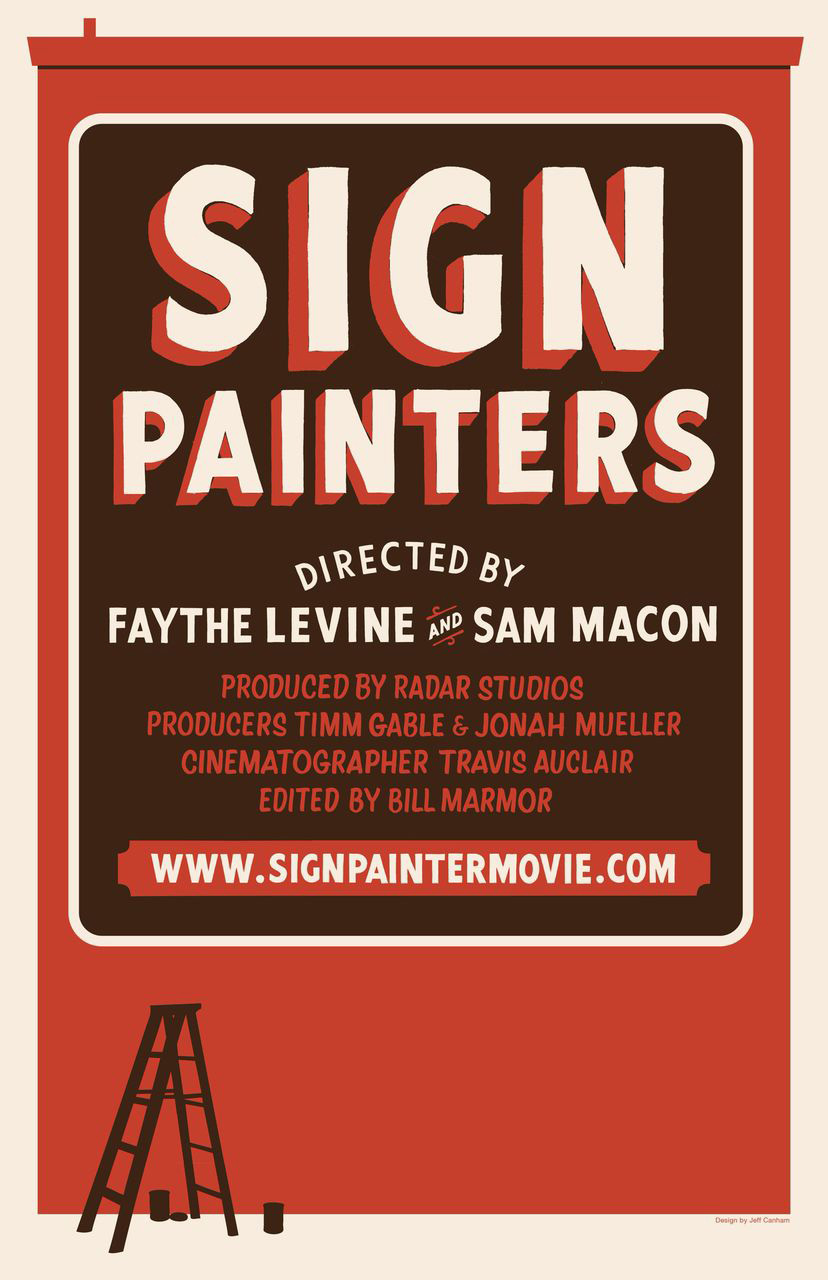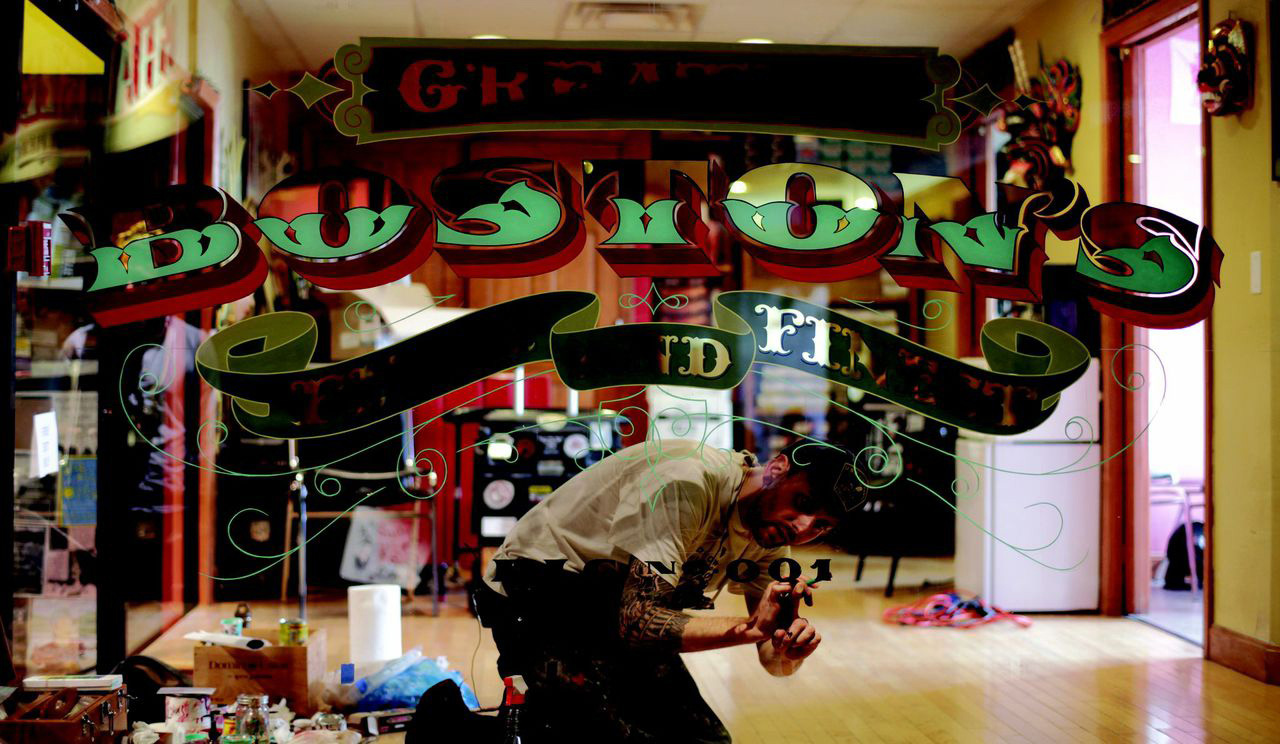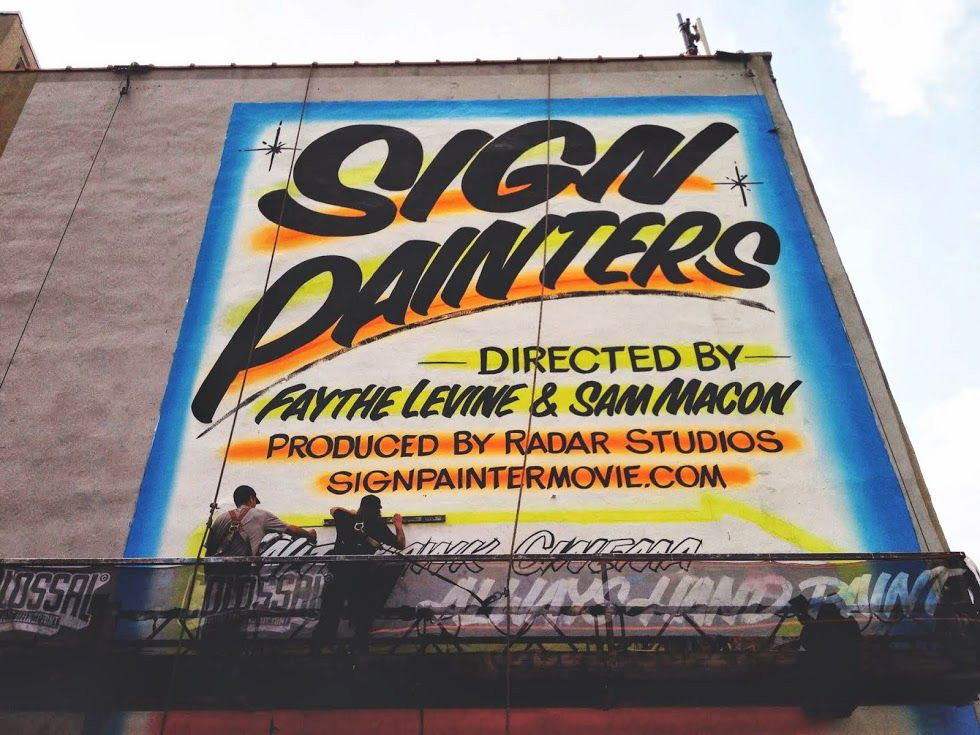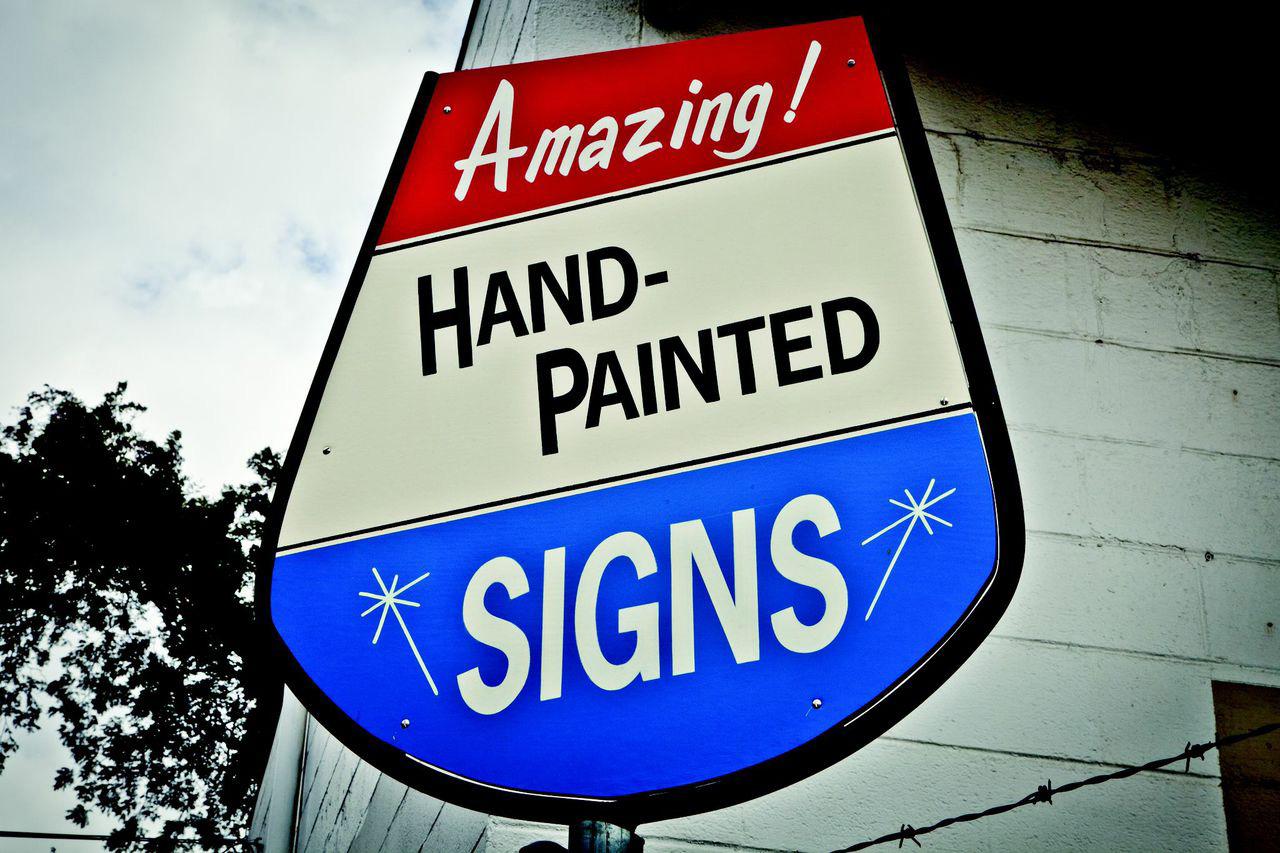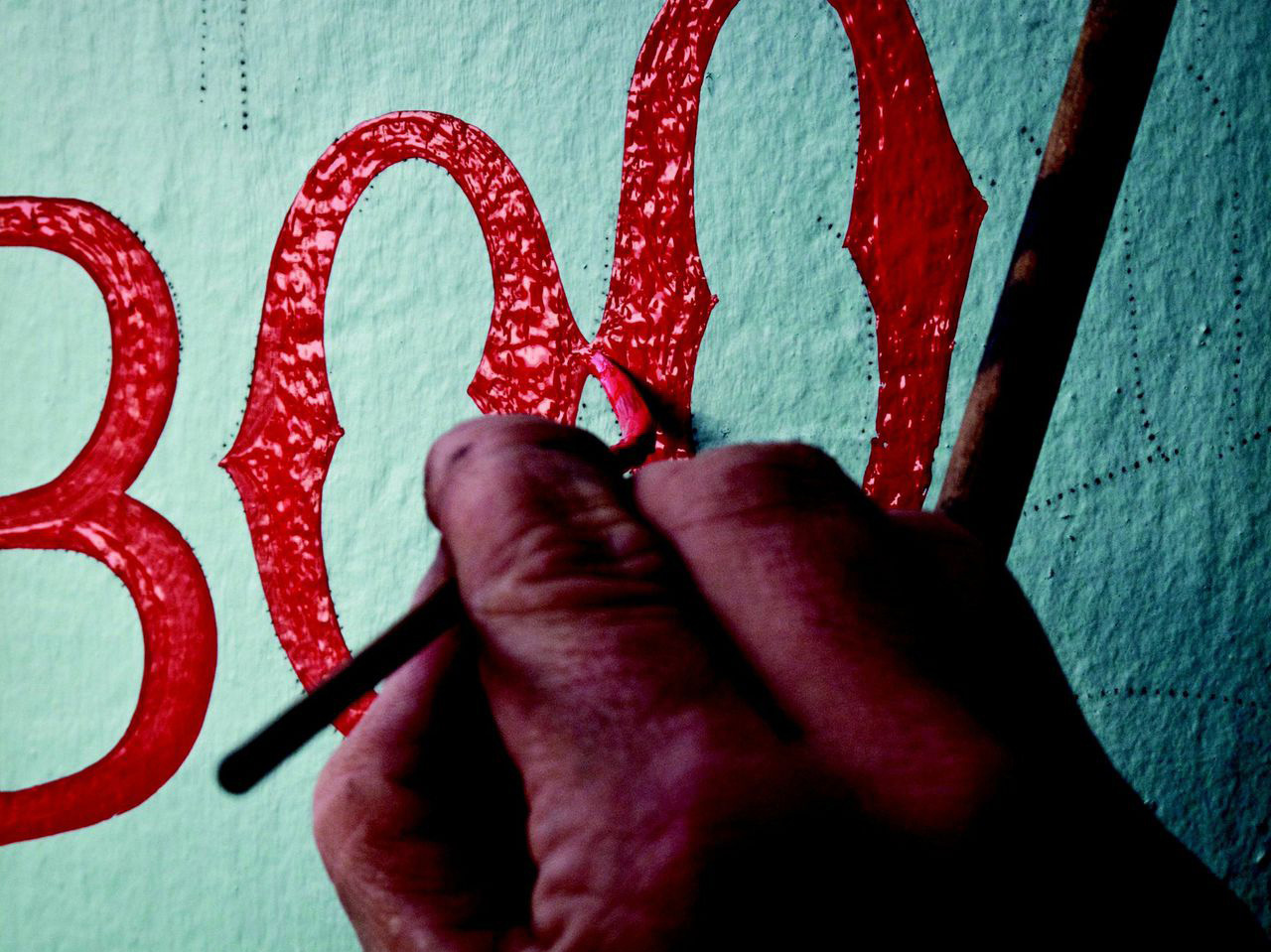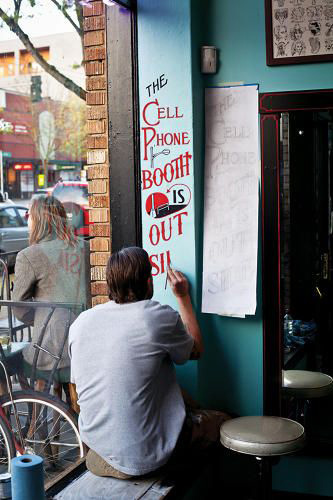
Sam Macon on his documentation of an All-American creative tradition
What a terrific movie Faythe and Sam have made! Sign Painter’s engaging telling of this important american story should have good legs” says legendary artist and former sign painter himself Ed Ruscha on the 80 minute documentary movie that Faythe Levine and Sam Macon brought to life. After four years in the making, the duo captured the dedicated practitioners, their time-honored methods, and their appreciation for quality and craftsmanship in this amazing film that is the first anecdotal history of the craft. Featuring the stories of more than two dozen sign painters working in cities throughout the United States the documentary (and book) profiles sign painters young and old, from the new vanguard working solo to collaborative shops such as San Francisco’s New Bohemia Signs and New York’s Colossal Media’s Sky High Murals.
“We see them almost every day without a second thought. Weathered by time, distinct characteristics shining through, hand-painted signs are a product of a fascinating 150 year-old American history. What was once a common job has now become a highly specialized trade, a unique craft struggling with technological advances”. Faythe Levine & Sam Macon, stylistically explore this unacknowledged art form through anecdotal accounts from artists across the country including Ira Coyne, Bob Dewhurst, Keith Knecht, Norma Jeane Maloney and Stephen Powers. These vanguards of unseen originality are leading a renaissance with a keen creative purpose and exemplify the working class American success story. Sign Painters celebrates those keeping the tradition intact with a bespoke approach and appreciation for a balance between art and commerce. When we asked Milwaukee born, Chicago based filmmaker, photographer, and writer Sam Macon to share with us everything that is to know on their stunning project he greeted us with a sign painting that says “Welcome”.
What motivated you to document the world of sign painting in the first place?
Faythe and I collaborated for years prior to making Sign Painters, and had known for some time that we wanted to work together on a larger scale project. We just didn’t know what form it would take. When Faythe suggested the idea of doing a doc on sign painting, my own ignorance of the trade and the lack of available information on it, proved to be a huge motivator. We’re both really interested in urban aesthetics, letters and signage, and people who are dedicated to specific processes - Not only did sign painting cover all of those bases, as documentarian it’s always exciting to tell a largely untold story.
What is your most favorite painted sign that you encountered?
Oh man, that is a hard question to answer. There are SO MANY great signs hidden in plain sight. What was really interesting is how our taste preferences were informed by our education of the trade. I think originally, both our taste gravitated towards the lose, less perfected signs - some would call folk signs, maybe? But as we spent more time on the project and learned more about the skills and tools associated to the trade, we began to really appreciate the expertly polished work. More specifically, I personally really like very simple work horse signs that were painted years ago - no parking, employees must wash their hands, for rent. Really basic signs, with perfect letter forms, that you just know must have been done years ago by a total pro who no doubt banged the sign out in minutes.
How long did you work on the project?
From conceptualization to the release of the film, the whole project was roughly a 4 year endeavor.
How did you discover the sign painters you interviewed?
We began with some younger people that Faythe knew personally and expanded from there. Though some sign writers have a digital presence, there is an understandable anti technology streak within the trade, so tracking down the right people online proved difficult. Much of the discovery was through word of mouth. We’d interview one painter and they’d say, “you can’t make this movie without talking to so and so.” We’d then call up so and so and convince them to let us into their home, their studio, their hospice, and do an interview. This process became a bit easier as the project gained momentum.
How has public art and sign painting changed through the years?
Well, first off, sign painting and public art are very different animals. By and large the type of sign painting that we focused on was of a more strictly commercial nature. Throughout much of sign painting’s history, it has been (for the most part) more of a trade than art. Often, sign writers were / are tradespeople first and artist second. There are of course exceptions with guys like Steve Powers, but the sign painting that WE focused on, was of the more “client based” variety. One of the things so interesting about sign painting is that it’s at this very unique intersection of art and labor. If you wanted a sign you hired a sign painter, and if you got out of their way and let them do their job, you’d probably end up with a sign that communicated and looked great.
“Sign painting exists at this very fascinating intersection of art and labor. It takes incredible talent but it’s also a lot of goddamn WORK.”
I think, what’s changed the most is the public’s perception. Now that shitty, mass produced digital signage has taken over, people respond to an amazing old ghost sign in the same way they might respond to an artist mural. The original creator’s intentions may have been totally different - capitalist v.s. creative - but now, given the current state of things, they both illicit a similar response in people. They enhance and lend character to an urban environment.
Which location inspired you the most with its tradition on sign painting?
I can’t pick just one place. Consistently, the most exciting discoveries have been the one off signs that you just know have been there forever -a random sign at a gas station off the highway, the address on a building, an old ghost sign. It’s always exciting to just find these working signs that you know were done by some pro years ago. That said, it’s really inspiring to be in a city like San Francisco, Austin, or Olympia where there has been a continuous presence of working sign painters throughout the years. You can see the positive impact that an individual or group of individuals can have on the way a place looks.
In what ways are you hoping to bring this underrated form of art into the spotlight?
Faythe and I have said from the beginning that our goal was to make a film (and book) that A - did right by the sign community, and B - brought awareness to a larger audience. The hope being that increased awareness on the part of the general public would generate work for sign painters and, that said, work would contribute to the visual landscape of this country.
“Now that shitty, mass produced digital signage has taken over, people respond to an amazing old ghost sign in the same way they might respond to an artist mural.”
How would you describe the people in the sign industry?
As with any industry, trade or discipline, all sorts of people become sign painters. There are the old stereotypes of the hard living heavy drinking sign painter, but we found that to largely be a myth at this point. Nowadays you’re more likely to meet a dedicated young entrepreneur or a middle aged person who worked to put kids through college. The more sign painters you meet, the more difficult it becomes to make sweeping generalizations. That said, there are some recurring themes that come up time and time again - A love / borderline obsession with letter formation, a gravitation towards self determination, being your own boss, a desire to work outside.
What is the main difference between sign painting and other type related art forms?
In my opinion sign painting exists at this very fascinating intersection of art and labor. It takes incredible talent (some would say artistic talent, myself being one of them) but it’s also a lot of goddamn WORK. At this point, you can’t go and get a job at a big shop. So most sign painters need to be savvy business owners as well as excellent sign writers. That means paperwork, permits, client relations, etc. Sign painters need to be able to work on a ladder for hours or rig a swing stage and paint through all sorts of weather. It’s client based work, so you need to take the client’s wants and needs into account. These are real world, labor based elements that many artist don’t need to deal with in the same capacity. Don’t get me wrong, I value and understand the life of a working artist, but with sign painting - the work and the art are more completely intertwined.
How has technology changed this community and its artistry?
What’s really amazing is that, the techniques of traditional sign painting is almost impervious to technological advancements. The basic process, tools, and methodology hasn’t changed much in a hundred plus years. The introduction of computer aided signage in the 80s damn near wiped out the whole industry. People (clients) have a tendency to gravitate towards the quick and the cheap. The irony is that now computers, once thought to be the great destroyer, have proven to be incredibly instrumental in the growing appreciation for the trade and unifying people within the industry.
In this digitized era of ours do you think businesses appreciate this hand lettered art form? What about the customers, the public eye?
I think some do, and those that do stand out. Businesses that “get it” are on the right side of history. A quality handmade sign suggest you really care about your business, and more the general public appreciates that and rewards that level of care by being selective when and where to spend their hard earned money.
“The irony is that now computers have proven to be incredibly instrumental in the growing appreciation for the trade and unifying people within the industry.”
What’s the place of “lettering skills” in today’s digital society?
I think that computers have made it really easy for anyone to call themselves a designer, a photographer, a filmmaker, and artist, etc. Anyone can make something look alright or look professional. But in my opinion, the cream always rises to the top and more often than not the most interesting creative work is done by people who have a solid foundation in analog fundamentals. Computers can do amazing things, but at this point in the evolution of visual culture computers are just a tool usually used to emulate aesthetics that were developed by hand. If a designer is limited by what they can do on a computer they run the risk of being literally unable to make something truly unique. A piece of hand lettering is a one of a kind creation by its very nature.
Please name the most important person you met while filming.
Everyone we met was great, but Keith Kenecht is one of the most wonderful humans I have ever had the pleasure of meeting. His knowledge and ability was unparalleled, and his ability to communicate his love for sign painting was profound. Sadly he passed away. We dedicated the film and book to him.
Do you think logos have a significant influence in our everyday living?
I’ve been a highly visual person my whole life. Even as a kid I gravitated towards interesting signage and cool logos. I wouldn’t say they “influence” my life too directly at this point, but I do appreciate good design and it definitely has an effect on how and where I spend my money. I don’t have any tolerance for thoughtlessness. People should take pride and care about what they do, and to me, quality design is a representation of care and attention to detail.
“If a designer is limited by what they can do on a computer they run the risk of being literally unable to make something truly unique.”
What are your future plans for the movie, if any?
We don’t have any big plans for the project. The project and the people we met within the trade will continue to be an important part of my life for as long as I live. I think just enjoying the work done by the friends we made along the way will be the main way I stay involved with the project.
Which is the most memorable moment while filming “Sign Painters”?
Just too many to list. Meeting Keith is up there. The moment when Ed Ruscha called me on my phone to discuss him writing the foreword for the book and we talked for an hour was pretty fucking cool.
You are an artist yourself. How did documenting this community influenced your work and mentality?
It energized me as an artist. What is really cool about a physical medium like sign painting is that there are no short cuts. You can’t pick it up over night. You can only become a great sign painter through total commitment and dedication. You have to put the time in, and you have to work your ass off even when no one is paying attention or hiring you. You have to believe. It also taught me that details are everything. The details that make a sign a great sign will largely go unnoticed by 99% population. As an artist, I am looking to make work for everyone, but I’d be lying if I said I wasn’t trying to impress the 1%.
What piece of advice would you give to anyone interested in sign painting as a profession?
Find a mentor. Put in the time.
Do you recall the first ever letterform that captured your attention?
Yep. It was the titles for Indiana Jones and the Raiders of the Lost Ark.
“Working on this project, energized me as an artist. It also taught me that details are everything.”
If you were a font, which one would you be and why?
I guess I’d be a piece of hand lettering, which by definition isn’t a font. Probably sign painter’s casual or a heavy egyptian. If I had to pick a font, I’ll go with Garamond, but that’s not very representative of my loud mouth personality. I just like it.
What would your sign communicate to us? In other words, what would be your logo?
It would say, “FILMMAKER FOR HIRE.” I should have someone make that sign.
Which is the best way to say goodbye to this interview?
Probably a hand painted “SORRY WE’RE CLOSED” sign.